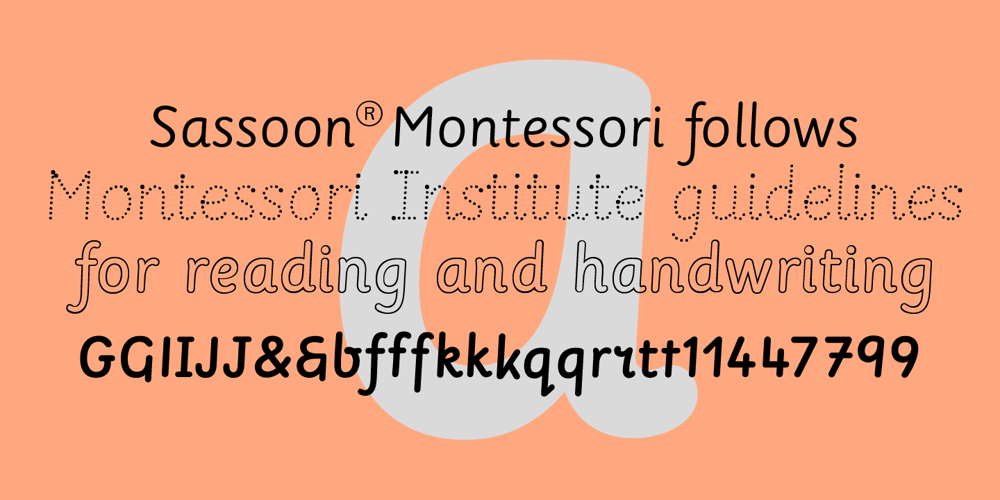
Sassoon Montessori
Sassoon Montessori font
Sassoon Montessori Font Family was designed by Rosemary Sassoon and published by Sassoon-Williams. Sassoon Montessori contains 4 styles and family package options. Typefaces following Montessori Institute guidelines for reading and handwriting. With these fonts, the crucial stages of letter formation are made easier for parents and teachers to produce consistent worksheets. Children should then progress towards an efficient and mature joined-up handwriting. Free to download resources: How to access Stylistic Sets of alternative letters in these fonts